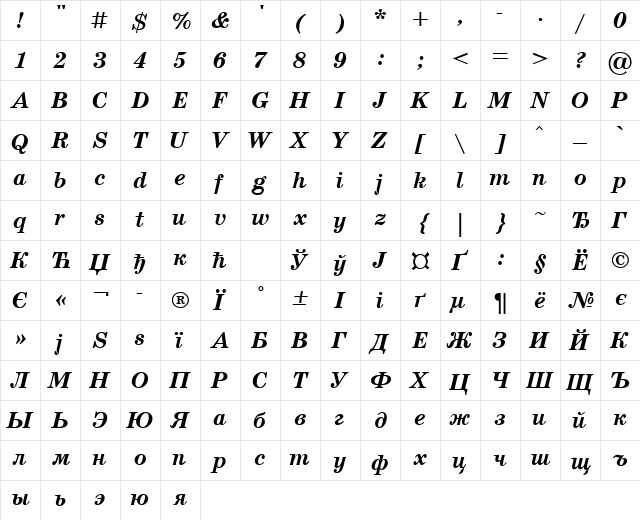
SchoolBookCTT BoldItalic Font Preview
SchoolBookCTT BoldItalic
SchoolBookCTT BoldItalic Font Details
Design Context for SchoolBookCTT Typeface
SchoolBookCTT offers clean, dependable letterforms without strong stylistic allegiance, making it a practical choice for designers who need flexibility. Its italic angle brings a sense of urgency and motion to the letterforms. Its bold stroke weight gives it real presence on the page.